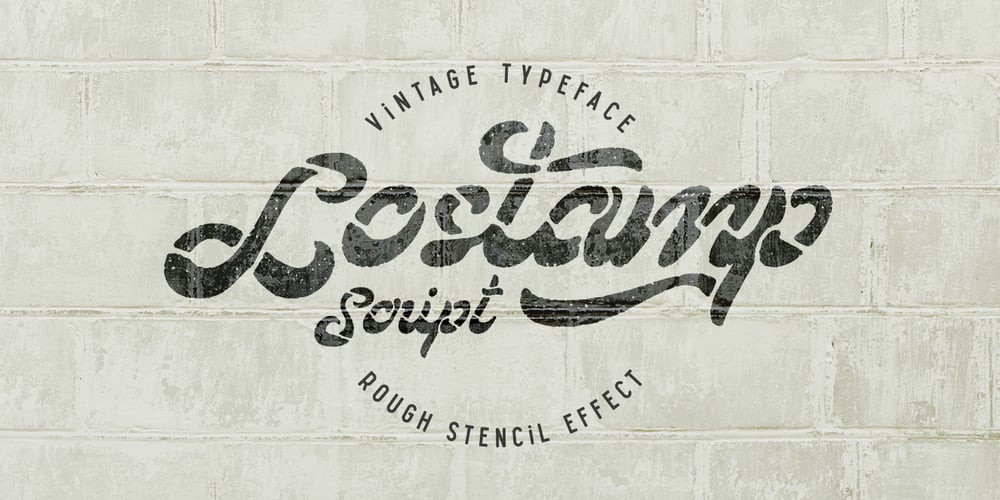
Lostamp
Lostamp font
Lostamp Font Family was designed by Gleb Guralnyk and published by Gleb Guralnyk. Lostamp contains 2 styles and family package options. Hi! Here is a grunge variation of my “Loftype” font named “Lostamp”. As you can see it has a stencil cuts and two versions with rough and clean contours. All OpenType features, like alternates, ligatures, swashes also exists in this fonts.